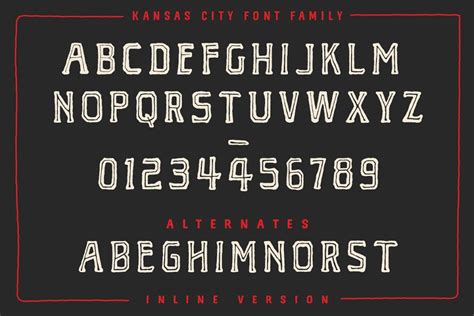
KC Fonts: Your Ultimate Guide To Stunning Typography
KC Fonts: Your Ultimate Guide to Stunning Typography
Hey guys! Ever wondered how to make your designs pop ? Or how to choose the perfect font that screams exactly what you want to say? Well, you’ve landed in the right place! Let’s dive into the amazing world of KC Fonts, where we’ll explore everything from their unique styles to how you can use them to transform your projects. Trust me, by the end of this article, you’ll be a typography whiz!
What are KC Fonts?
So, what exactly are KC Fonts? Well, the term “KC Fonts” might not refer to a specific, universally recognized font family like Arial or Times New Roman. Instead, it’s more likely a reference to a collection of fonts created or curated by an individual designer, a design studio based in Kansas City (hence the “KC”), or even a set of fonts tailored for a particular project or brand identity. Think of it as a special selection of typefaces that share a common aesthetic or purpose.
Understanding the Origin and Context
To truly understand what someone means when they talk about KC Fonts, you’ll need a bit more context. Are they mentioning a specific designer from Kansas City known for their typography? Is it a brand using a custom-designed font suite? Or perhaps it’s a project where a particular style of fonts – maybe something with a midwestern, modern, or artistic vibe – is being used? Knowing the origin will help you understand the characteristics and intended use of these fonts.
Exploring the Characteristics
While there isn’t a single definition, if we imagine KC Fonts as a collection, we can think about the types of characteristics they might have. Maybe they lean towards:
• Modern and Minimalist: Clean lines, geometric shapes, and a focus on readability.
• Hand-drawn and Quirky: Fonts that look like they were created with a pen or brush, adding a personal touch.
• Vintage and Retro: Typefaces that evoke a sense of nostalgia, reminiscent of old signage or posters.
• Bold and Impactful: Fonts designed to grab attention, perfect for headlines and branding.
Why Understanding Font Collections Matters
Understanding the idea of font collections, whether they’re called KC Fonts or something else, is super important for designers and anyone working with visual communication. A well-curated font collection ensures consistency in branding, makes design projects more cohesive, and helps to convey the right message and tone. Imagine trying to design a website with a dozen different fonts – yikes! A cohesive collection makes everything smoother and more professional.
Where to Find Similar Font Collections
Why Choose KC Fonts for Your Projects?
Choosing the right font is like picking the perfect outfit – it can totally transform your look! KC Fonts, or any thoughtfully curated font collection, can bring a unique flair to your projects. So, why should you consider using them? Let’s break it down, focusing on the general benefits of a well-chosen font collection since “KC Fonts” doesn’t refer to one specific set.
Enhancing Visual Appeal and Brand Identity
Fonts are a huge part of your visual identity. They communicate personality, style, and tone. A carefully selected KC Font collection can make your designs more visually appealing and help reinforce your brand’s identity. Think about it: a sleek, modern font can give a tech company a cutting-edge feel, while a playful, hand-drawn font might be perfect for a children’s brand. The right fonts make your message memorable and recognizable.
Improving Readability and User Experience
Let’s be real: no one wants to squint and struggle to read your content. A good KC Font collection includes fonts that are not only beautiful but also highly readable. This is especially important for websites, apps, and any digital content where user experience is key. Choosing fonts that are easy on the eyes can increase engagement and keep your audience coming back for more. Trust me , your readers will thank you!
Creating Consistency Across Different Mediums
Consistency is key in branding. Using the same KC Fonts across your website, social media, print materials, and other marketing channels creates a cohesive and professional look. This consistency helps build brand recognition and reinforces your message. Imagine seeing the same font on a billboard, your website, and a business card – it creates a unified and memorable brand experience.
Standing Out from the Crowd
In a sea of generic designs, unique fonts can help you stand out. While widely used fonts like Arial and Times New Roman are reliable, they don’t exactly scream originality. Exploring a KC Font collection or similar curated sets can introduce you to typefaces that are less common and more distinctive. This can give your projects a fresh, unique look that captures attention and sets you apart from the competition.
Adding Personality and Emotion
Fonts have the power to evoke emotions and add personality to your designs. A bold, sans-serif font can convey strength and confidence, while a delicate, script font can evoke elegance and sophistication. By carefully choosing fonts from your KC Font collection, you can inject the right mood and tone into your projects, making them more engaging and impactful.
Boosting Professionalism and Credibility
Using high-quality, well-designed fonts can instantly boost the professionalism and credibility of your work. Poorly chosen or overused fonts can make your designs look amateurish and untrustworthy. Investing in a good KC Font collection shows that you care about the details and are committed to creating polished, professional designs.
How to Use KC Fonts Effectively
Okay, so you’re sold on the idea of KC Fonts (or a similar awesome font collection). But how do you actually use them effectively? Here are some tips and tricks to make sure your typography is on point and enhances your overall design.
Understanding Font Pairing
Font pairing is like matchmaking for typefaces. The goal is to find fonts that complement each other and create a harmonious visual balance. A common approach is to pair a display font (used for headlines and titles) with a more readable body text font. For example, you might pair a bold, modern sans-serif font with a classic serif font for a sophisticated look. Tools like FontPair and Adobe Fonts can help you find great font pairings.
Creating Visual Hierarchy
Visual hierarchy guides the reader’s eye and helps them understand the structure of your content. Use different font sizes, weights, and styles to create a clear hierarchy. Headlines should be larger and bolder than subheadings, and body text should be easy to read and comfortable on the eyes. This helps readers quickly scan your content and find the information they need.
Considering Kerning and Leading
Kerning refers to the spacing between individual letters, while leading (pronounced “ledding”) refers to the spacing between lines of text. Adjusting these settings can significantly improve readability. Too little kerning can make text look cramped and difficult to read, while too much can make it look disjointed. Similarly, too little leading can make lines of text feel crowded, while too much can make them feel disconnected. Most design software allows you to adjust kerning and leading to achieve optimal readability.
Using Color and Contrast
Color and contrast play a crucial role in typography. Make sure your text has enough contrast with the background to be easily readable. Light text on a dark background or dark text on a light background usually works best. Also, consider using color to highlight important information or create visual interest. Just be careful not to overuse color, as too many colors can be distracting and overwhelming.
Testing on Different Devices and Platforms
What looks good on your computer screen might not look the same on a mobile device or in print. Always test your typography on different devices and platforms to ensure it looks consistent and readable. Pay attention to how the fonts render in different browsers and operating systems, and make adjustments as needed. This will help you deliver a seamless user experience across all channels.
Keeping it Simple
Finally, remember that less is often more. Avoid using too many different fonts in a single project, as this can create a cluttered and confusing look. Stick to a maximum of two or three fonts that complement each other and create a cohesive visual style. Simplicity and clarity are key to effective typography.
Where to Find Inspiration for KC Fonts
Feeling creatively blocked? Don’t worry, we’ve all been there! Finding inspiration for KC Fonts (or any typography project) is easier than you might think. Here are some go-to sources to get your creative juices flowing.
Online Design Communities
Websites like Dribbble, Behance, and Awwwards are goldmines for design inspiration. You can browse through countless typography examples, font pairings, and design projects to see what’s trending and get new ideas. These platforms also allow you to connect with other designers, get feedback on your work, and stay up-to-date on the latest design trends.
Typography Blogs and Websites
There are tons of blogs and websites dedicated to typography and font design. Sites like I Love Typography, Typewolf, and Fonts in Use offer in-depth articles, reviews, and showcases of amazing typography. These resources can help you learn about different font styles, design principles, and best practices for using typography effectively.
Social Media
Social media platforms like Instagram, Pinterest, and Twitter can be great sources of visual inspiration. Follow designers, studios, and typography enthusiasts to see their latest work and get a glimpse into their creative process. Hashtags like #typography, #fontdesign, and #graphicdesign can help you discover new and interesting content.
Print and Environmental Design
Don’t forget to look beyond the digital world for inspiration. Pay attention to typography in print materials like magazines, books, and posters. Also, observe the typography in your environment, such as signage, billboards, and storefronts. You might be surprised at the creative and innovative ways that typography is used in the real world.
Historical and Cultural References
Exploring historical and cultural references can also be a great way to find inspiration. Look at typography from different eras, cultures, and art movements to see how fonts were used in the past. This can give you a deeper understanding of typography and help you develop your own unique style.
Experimentation and Play
Finally, don’t be afraid to experiment and play with different fonts, styles, and techniques. Try combining unexpected fonts, using unusual colors, or creating custom typography. The more you experiment, the more you’ll learn about typography and the more likely you are to discover something truly unique and original.